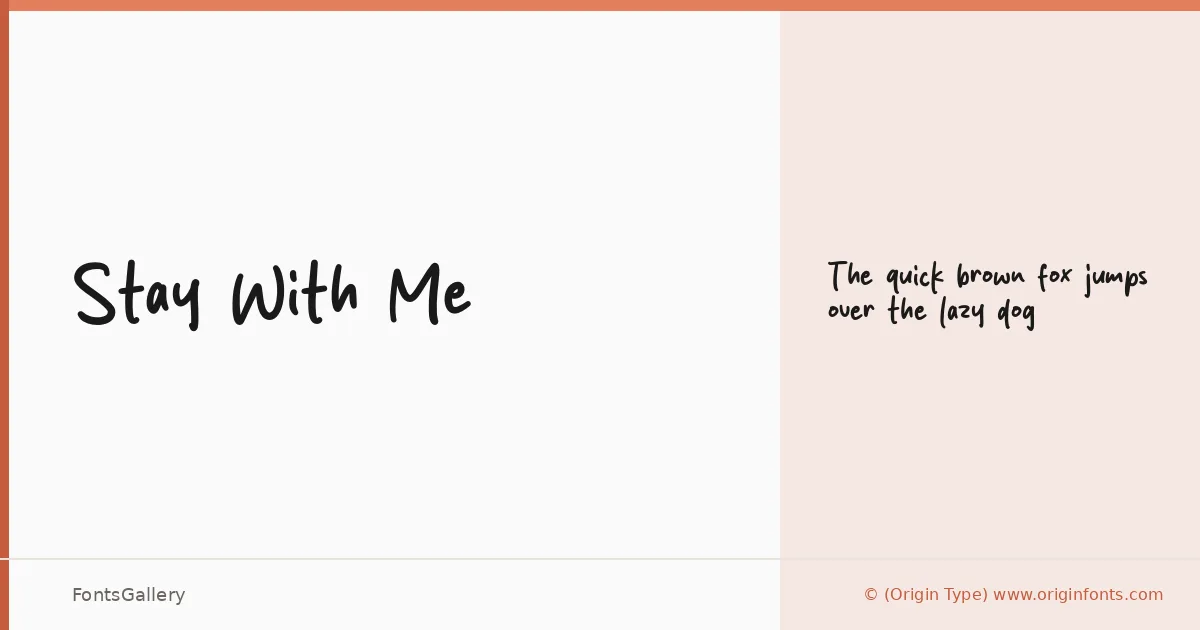
About Stay With Me Font
There is a looseness to this script that feels genuinely handwritten rather than mechanically traced — strokes that lean with intention, letterforms that carry a romantic, personal quality you associate with a note written by hand rather than typed. It comes from Origin Type, whose work can be found at originfonts.com, and arrives as a single Regular weight in OTF format.
Sitting squarely in the handwritten category, Stay With Me balances elegance with a playful energy — the kind of script that feels warm without being casual, romantic without being overwrought. The single Regular cut keeps things focused: this is a display face built around mood rather than a system of weights. Its Latin coverage is clean and consistent throughout.
The design suits wedding stationery, invitation cards, greeting cards, and branding work that calls for a softer, more personal touch — social media graphics and editorial headers included. It pairs well with the cool geometry of Helvetica or Asap for contrast, while companions like Canela, ABC Arizona, or Anglecia Pro offer a more editorial, fashion-leaning combination when you want both faces to share a refined sensibility.